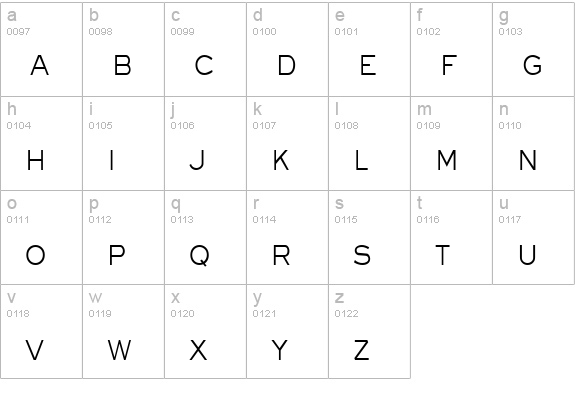
Eye glass Thin Normal Font Details
Eye glass Thin Normal is a delicate, low-contrast variant in the Eye typeface family \xE2\x80\x94 well suited to fashion editorial, minimal branding, and high-contrast display.
Eye glass Thin Normal font is a sleek and elegant typeface that exudes a modern and sophisticated look. Its thin strokes and clean lines make it perfect for adding a touch of finesse to any design project. The Eye glass Thin Normal font is versatile and can be used for various purposes, from branding to editorial design. The best part is that this exquisite font is available for free download at FontsMarket.com. Whether you're a designer looking to enhance your creations or simply want to add a touch of style to your personal projects, the Eye glass Thin Normal font is a fantastic choice. Download it now and elevate your designs with this beautiful typeface.